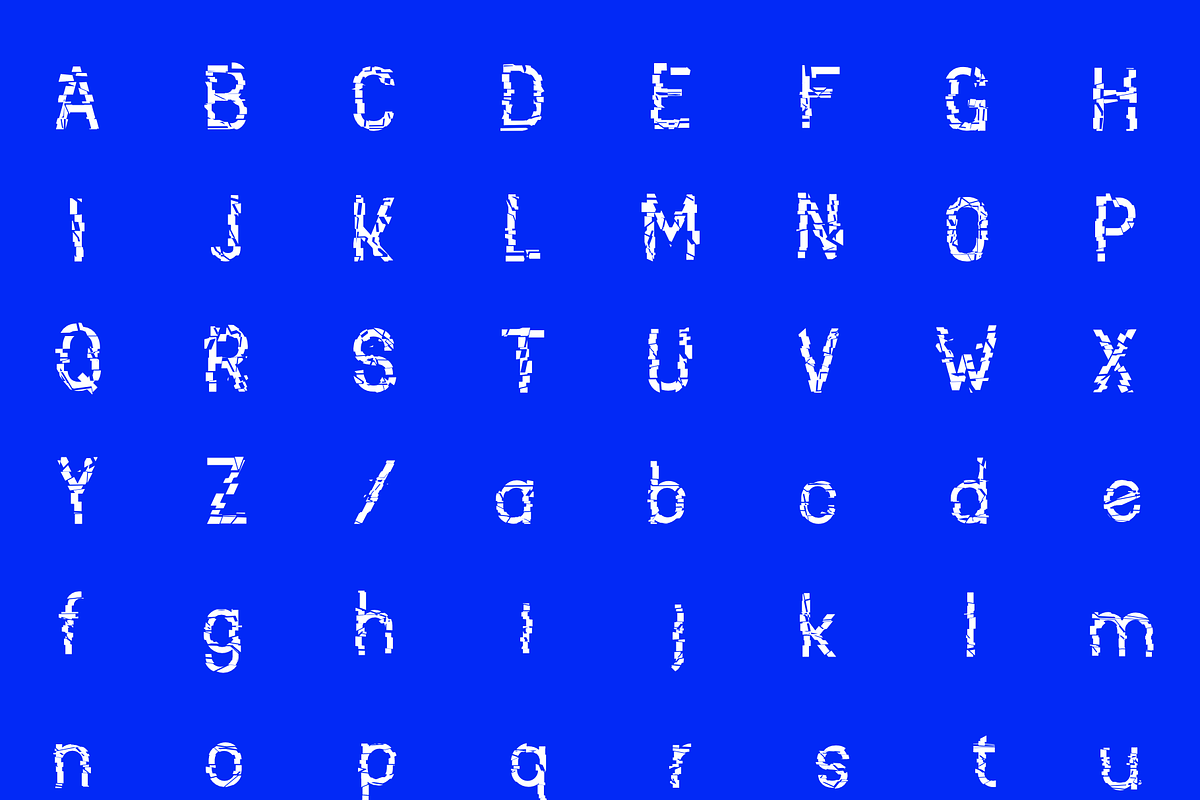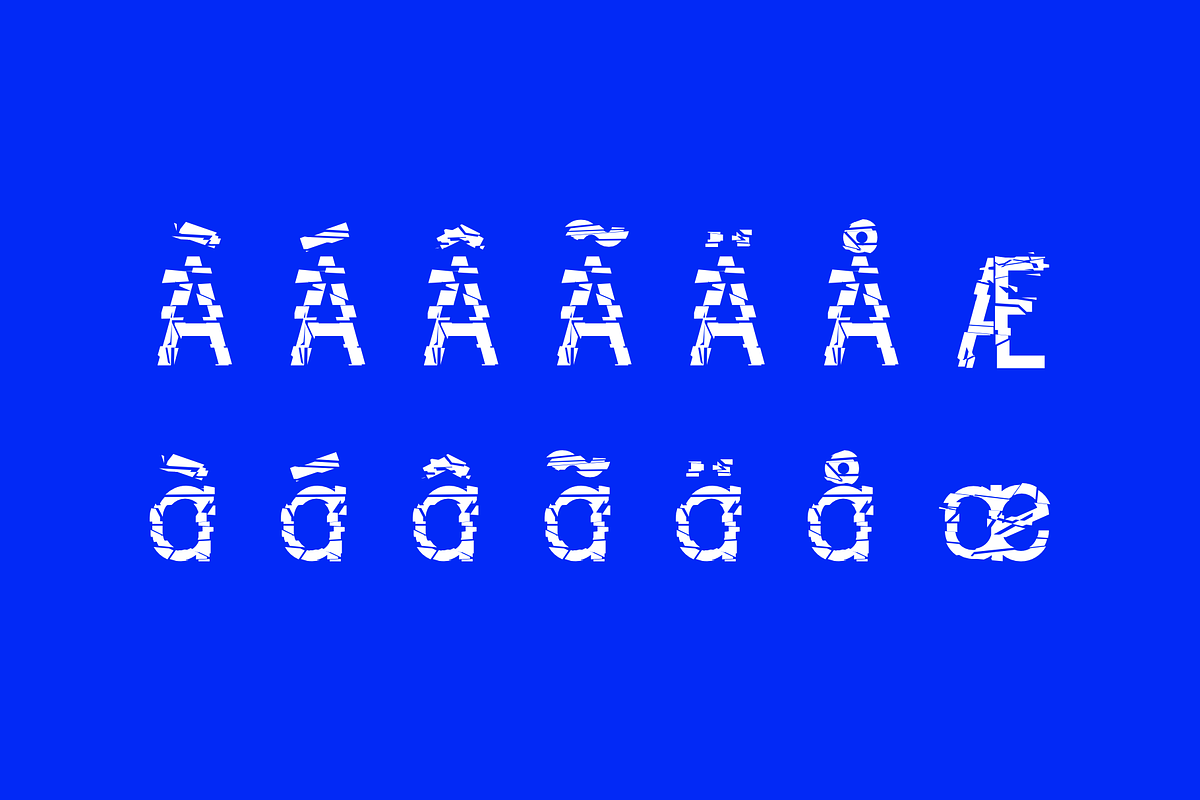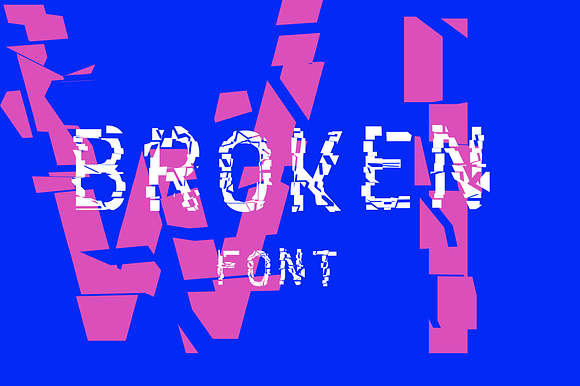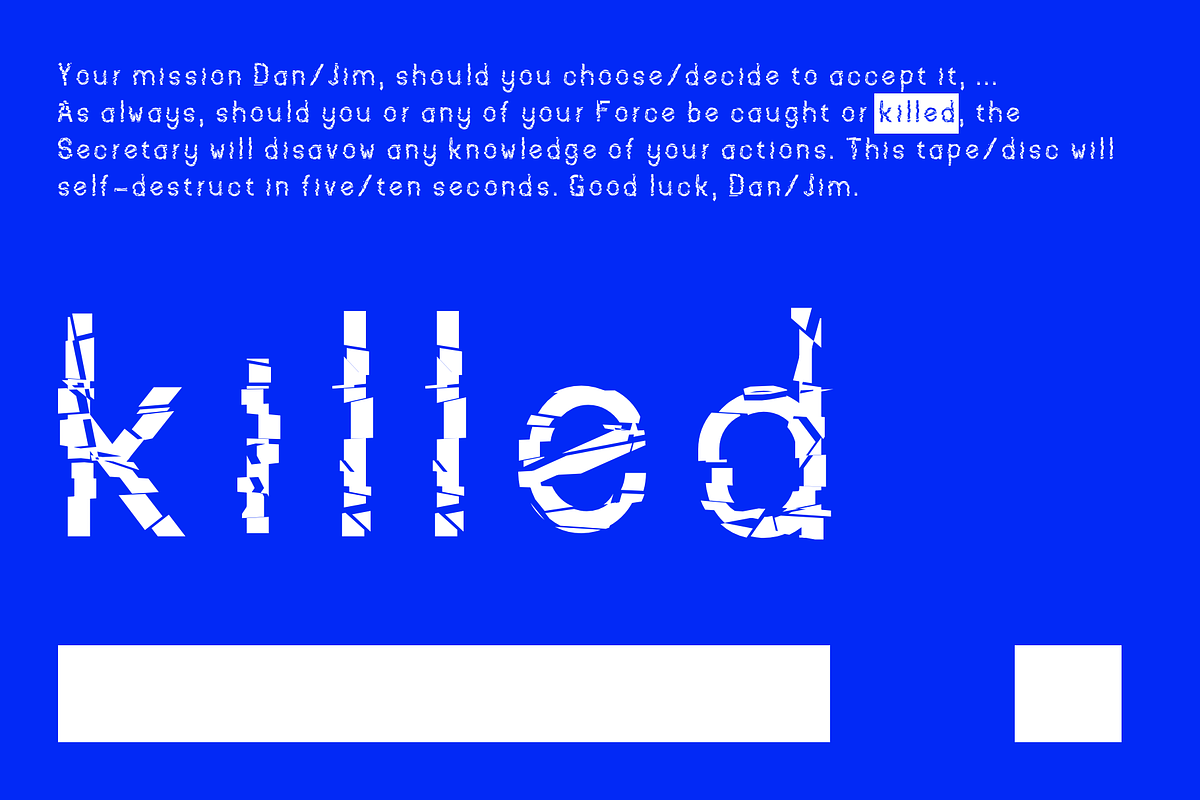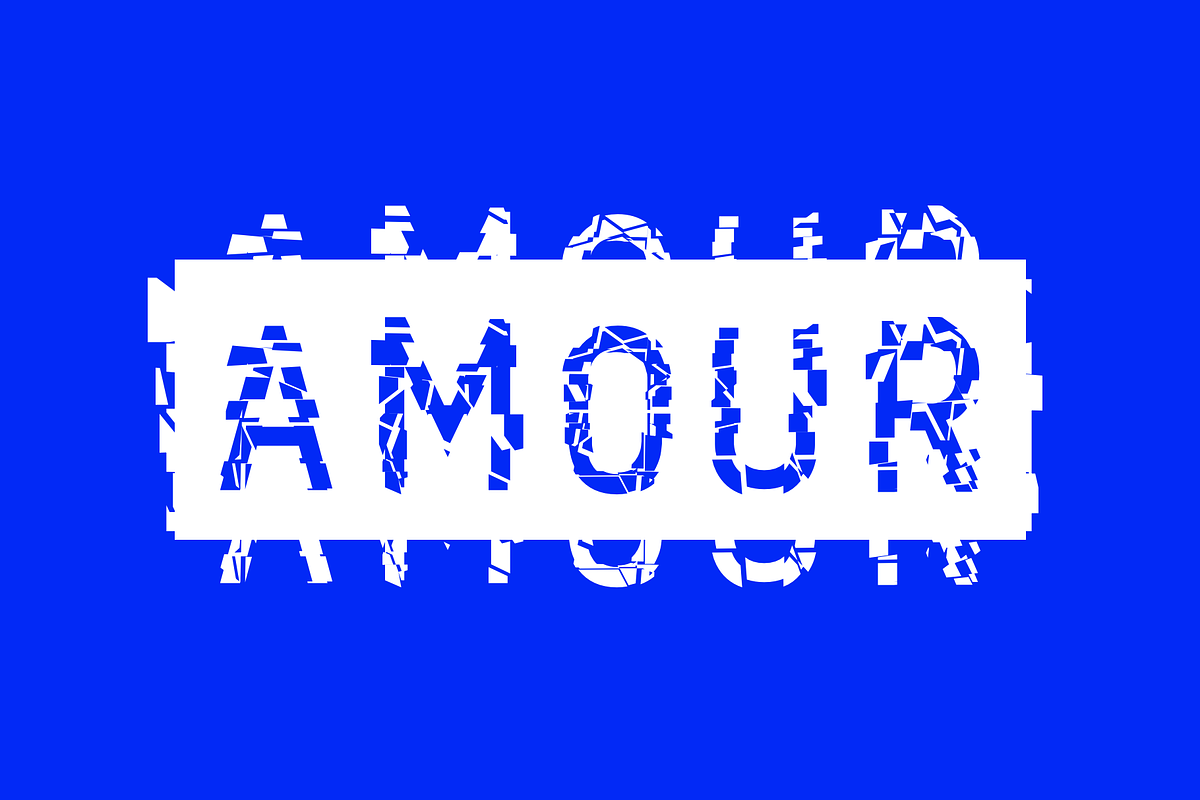
The name is inspired by a Flemish insult "godverdomme" meaning... I don't know. Anyway, what I know is HotForDom is made for really brutal design with a great effect. Made with slice, the font reproduce an impact or a glitch (as you prefer). Simple, easy to use, with 207 glyphs, all latin and werstern language.
- UPERCASE lowercase numerals foreign language Enjoy playing with.